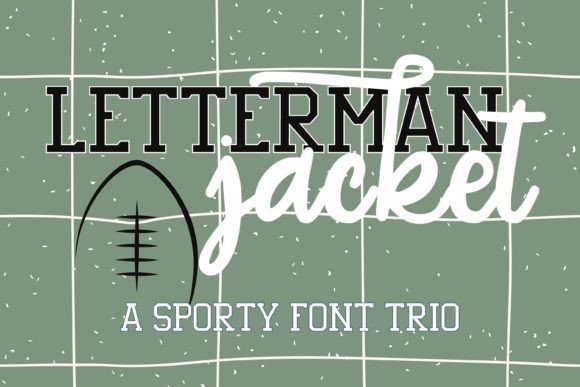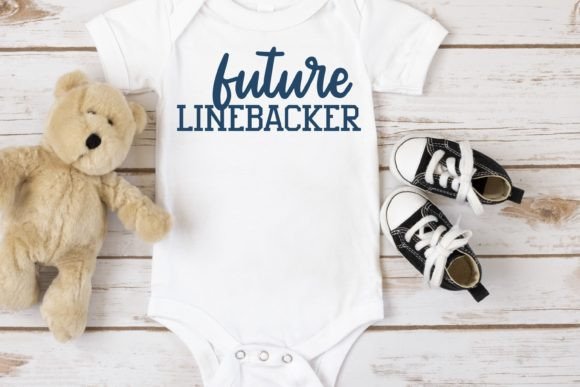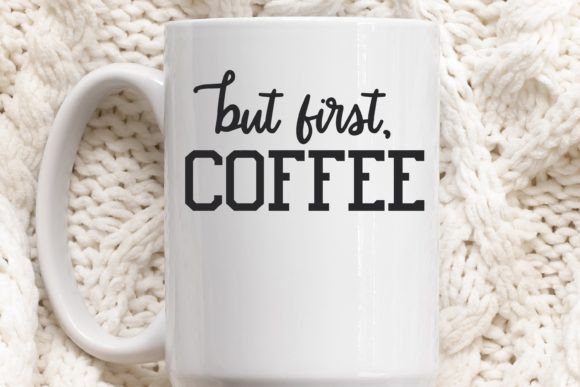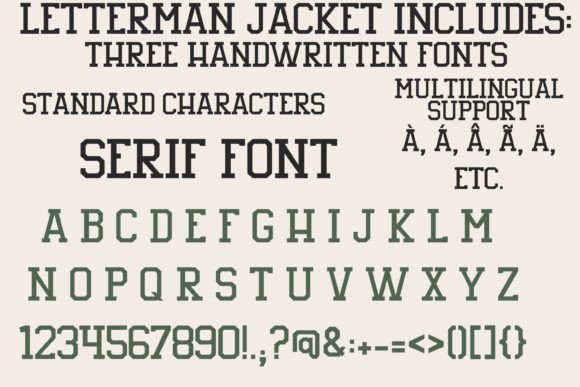
About the Letterman Jacket Font Font
Add a touch of class to your work with the Letterman Jacket Font Font, a truly exceptional typeface. Letterman Jacket is a dynamic and modern handwritten font that brings energy and movement to any design. With its bold strokes and fluid lines, Letterman Jacket is perfect for designs that need a touch of excitement and vitality. Use it for logos, headlines, or anything that needs a burst of energy!
Letterman Jacket excels in headlines, short slogans, and branding applications where a bold, energetic statement is desired. It’s ideal for projects targeting a youthful or rebellious audience, such as sportswear brands, music festivals, or streetwear campaigns. Avoid using it for large blocks of text or body copy; its handwritten nature makes extended reading difficult.
Pairing Letterman Jacket with a clean sans-serif like Open Sans for body text provides excellent contrast. For a more playful feel, consider a geometric sans-serif like Futura. A classic serif like Garamond offers a sophisticated counterpoint if a more upscale feel is needed.
The font’s core personality is youthful and energetic, conveying a sense of dynamism and movement. Its bold strokes project confidence and a slightly rebellious spirit.